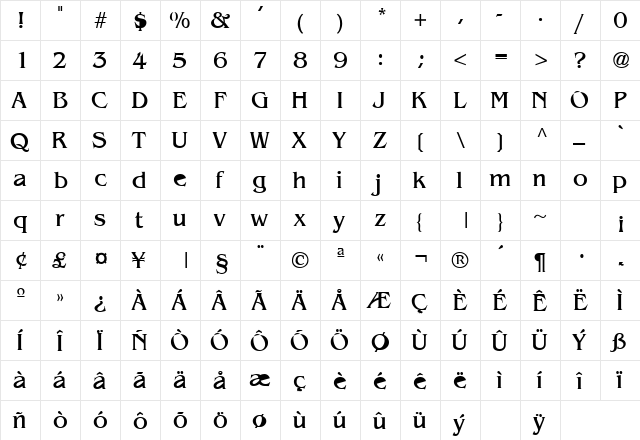
Benquad Normal
Design Context for Benquad Typeface
Benquad takes a measured approach to typography — its balanced proportions and neutral character make it a reliable workhorse for both digital and print work.